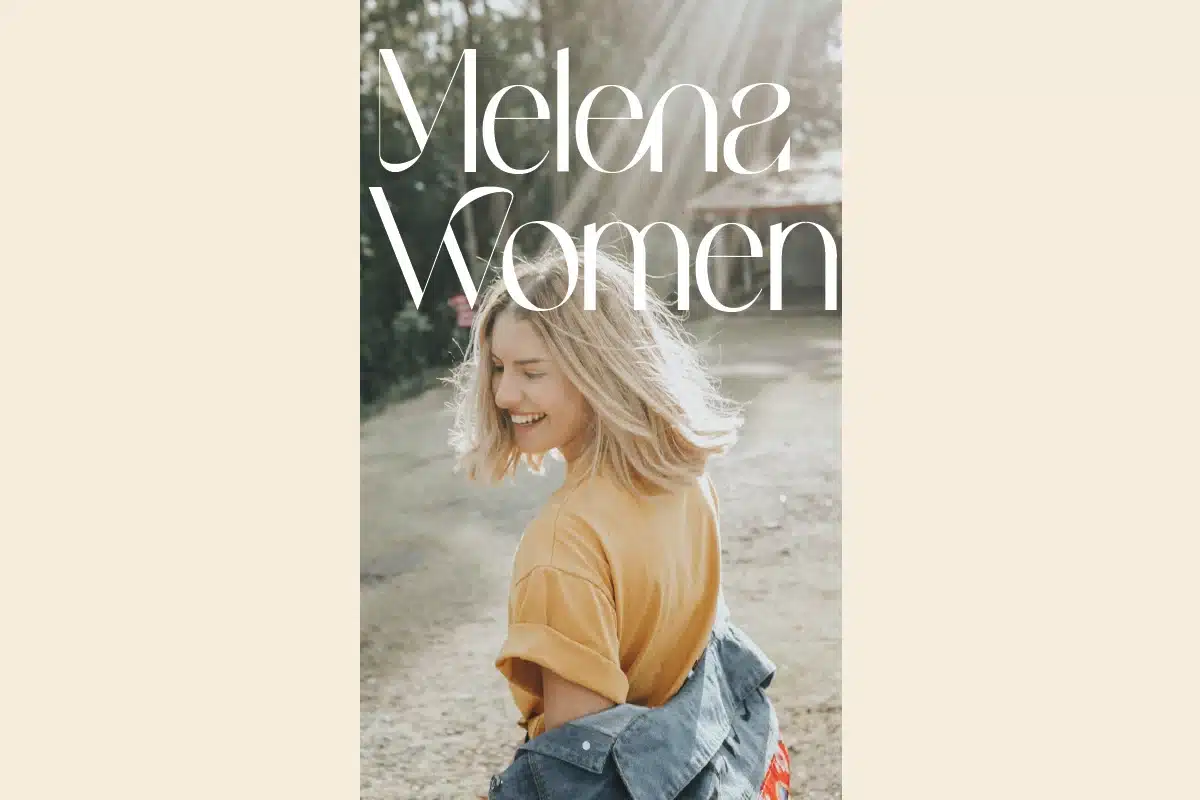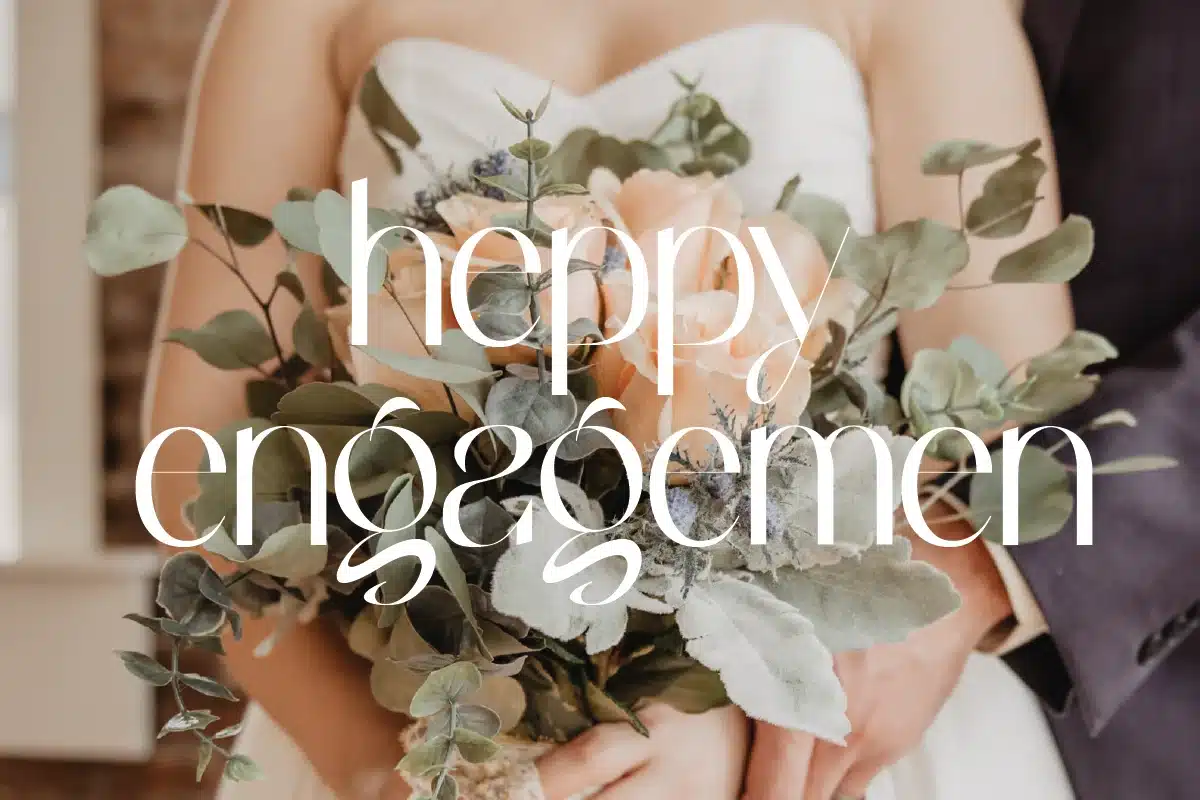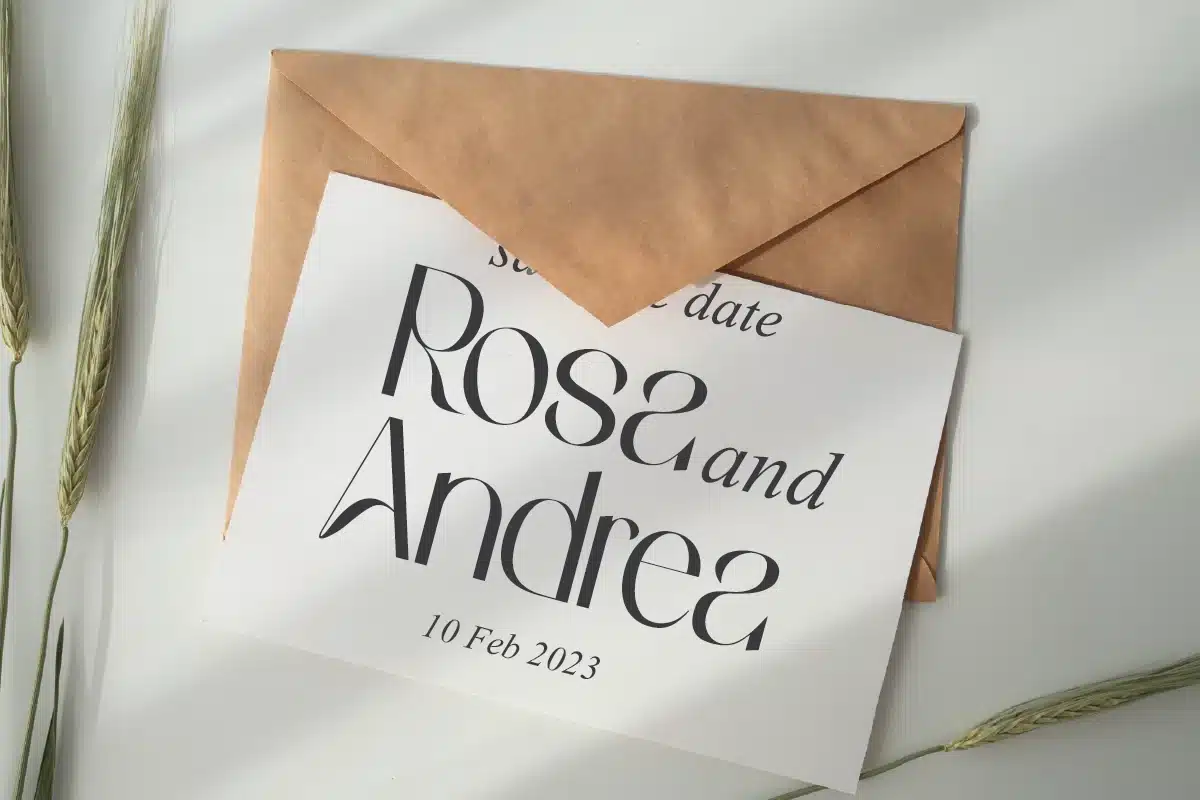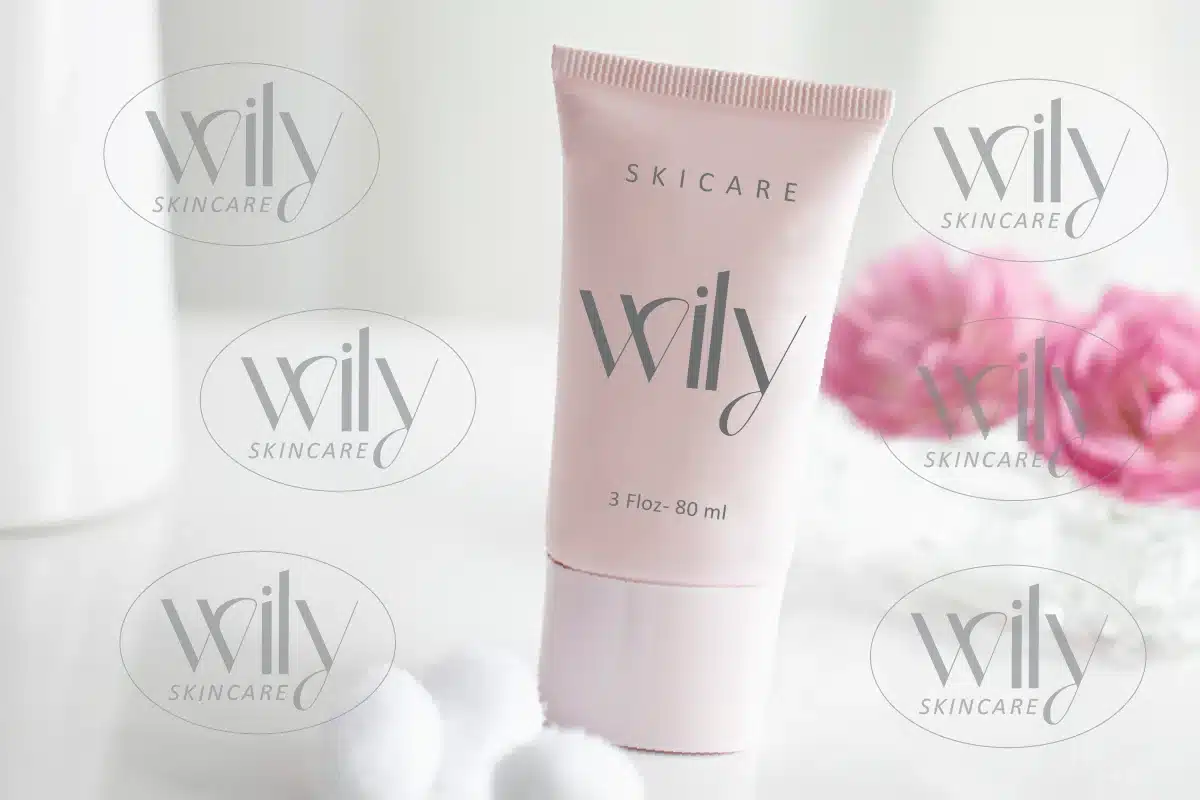
Gaylen – Modern sans serif Font
Gaylen is an elegant and modern sans serif font that combines minimalist structure with refined details. It features clean lines, subtle curves, and beautifully integrated ligatures and alternates to add flair without compromising versatility. Ideal for branding, logos, editorials, magazine covers, social media graphics, and any design that needs a contemporary, polished look.
Stylish ligatures & alternates
Clean strokes and balanced proportions